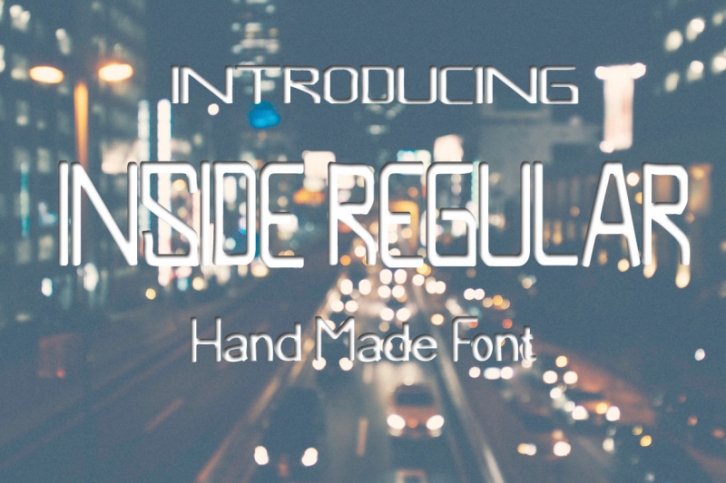
Introducing Inside Regular Signature Font script ...
Inside Regular  Signature Script font ... This is a classic font. Here you will get a beautiful classic font. This font is available in several modern swirls that can make your work look elegant, sweet and perfect.
With this style, this font will be suitable for logos, branding projects, design of household appliances, product packaging, mugs, quotes, posters, shopping bags, logos, t-shirts, book covers, business cards, invitation cards, greeting cards, and all your other beautiful projects.
Inside Regular Signature Script fonts, including various language support. You can use this font for your work very easily. Because there are many features in it. Contains a complete set of upper and lower case letters, punctuation, numbers and multilingual support. This font also includes various styles and alternative styles for those of you who have software that is able to work OpenType (Corel Draw / Photoshop / Illustrator / InDesign).